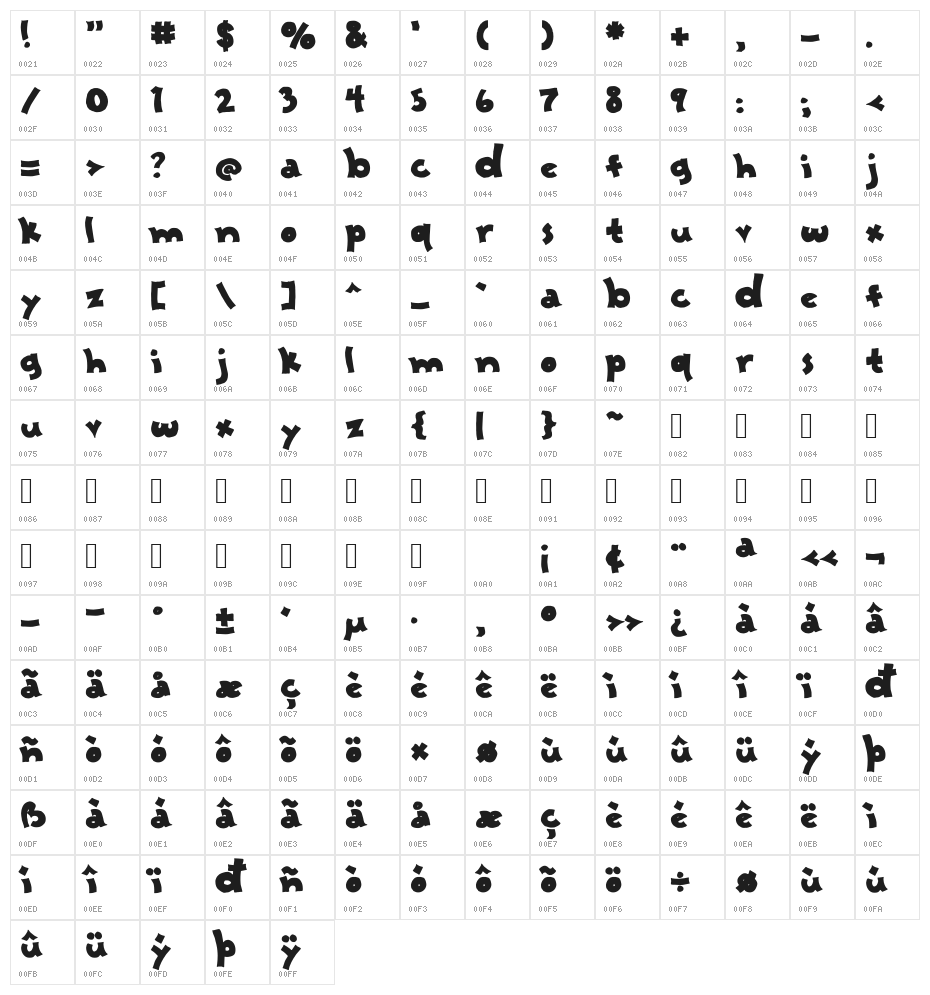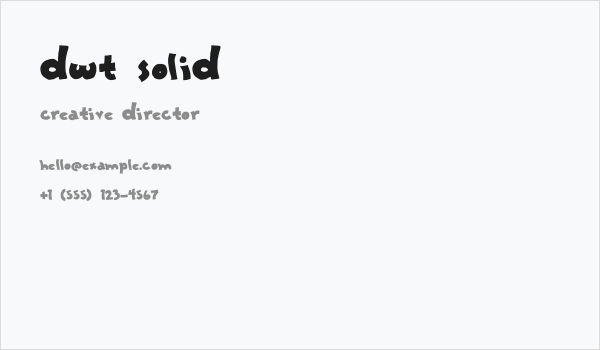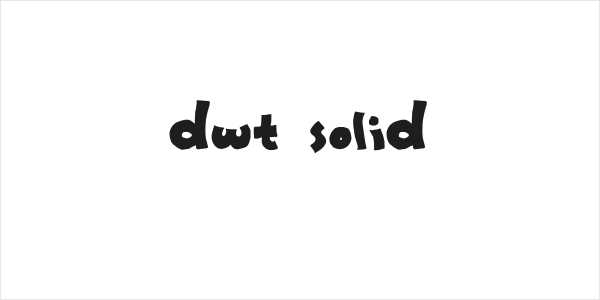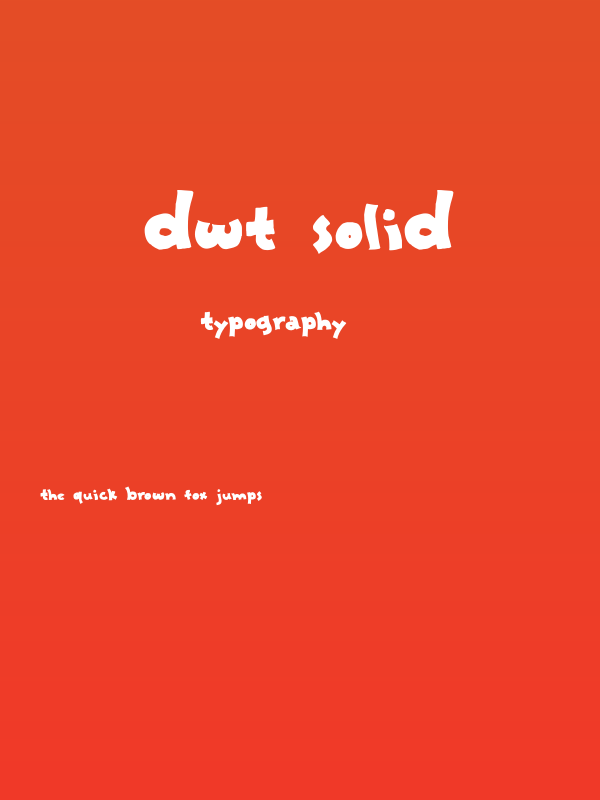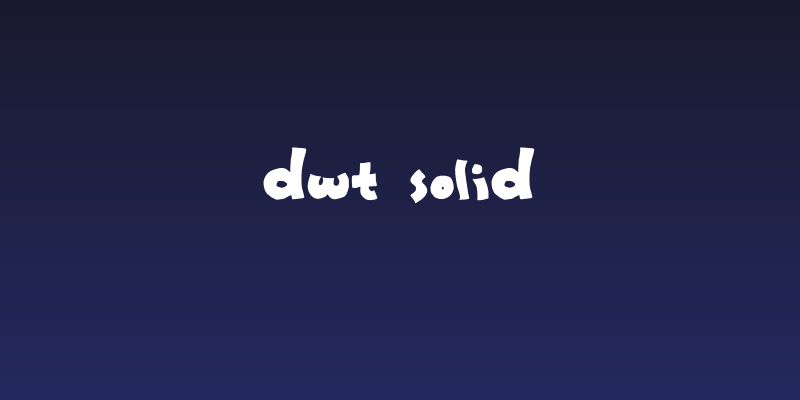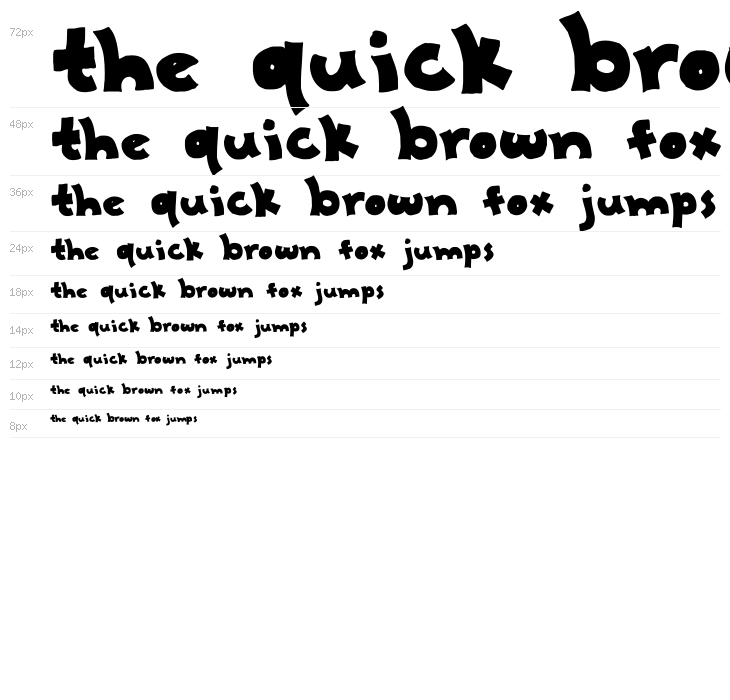
dwt Solid Font
dwt Solid Description
This font features a bold and playful design with irregular, chunky letterforms that give it a whimsical and dynamic appearance. The characters have a hand-drawn quality, with uneven edges and varying stroke thicknesses that add to its quirky charm. The uppercase and lowercase letters maintain a consistent style, while the numbers and special characters complement the overall aesthetic. This font's unique style makes it stand out, perfect for creative and informal projects.
Overall StylePlayful, Whimsical
Use CaseHeadlines, Posters, Creative Projects
Proposed ProjectsIdeal for children's books, playful branding, posters, and creative invitations.